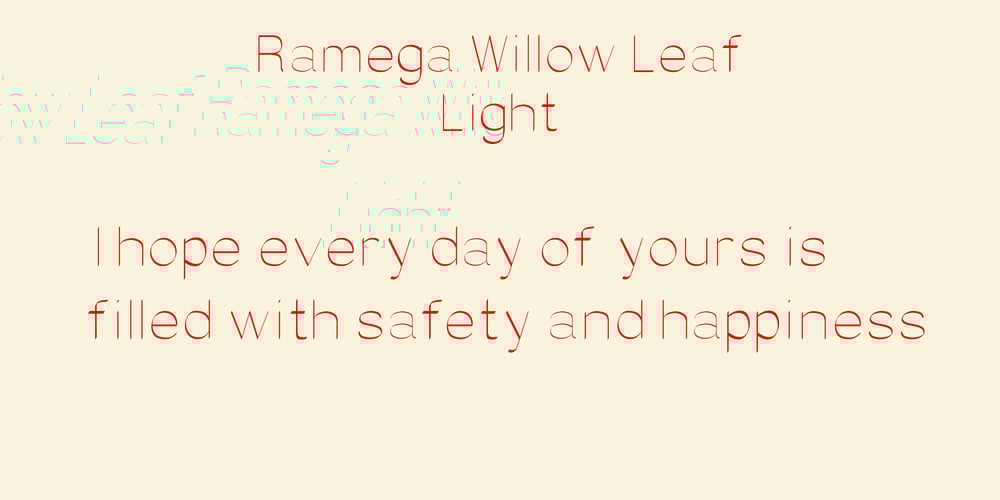
Ramega Willow Leaf
Ramega Willow Leaf font
Ramega Willow Leaf Font Family was designed by Apollo Zhang and published by Ramega. Ramega Willow Leaf contains 1 styles and family package options. Welcome to the world of “Willow Leaf” – an exquisite collection of English fonts now extended to include 6763 Simplified Chinese characters, covering the entire range specified in China’s GB2312 standard. With its distinct design, “Willow Leaf” showcases a unique character style that seamlessly blends the elegance of its original English typeface with the rich expressiveness of Chinese characters. The terminals of each character, both English and Chinese, feature a graceful slanted cut, resulting in a smooth and rounded appearance. Furthermore, the strokes exhibit subtle variations in line curvature and width at the transition points, adding an elegant touch to this contemporary typeface. Exuding an air of refinement and modernity, “Willow Leaf” effortlessly captures the spirit of our time in both the Western and Eastern script. Its sophisticated and fashionable aesthetic makes it an excellent choice for a wide range of applications. Whether used in editorial layouts, brand identities, or digital platforms, this typeface strikes a perfect balance between timeless elegance and contemporary allure. The meticulous craftsmanship of “Willow Leaf” ensures exceptional legibility and readability, even at smaller sizes, across both scripts. The harmonious proportions and intricate details make it a versatile choice for both headlines and body text. With an extensive selection of weights and styles, designers and typographers have endless creative possibilities at their fingertips. We are thrilled to announce that “Willow Leaf,” now supporting both Simplified Chinese and English alphabets, will soon be available for purchase on leading font platforms. Stay tuned for its official release, and get ready to elevate your designs with this exceptional typeface. Experience the seamless fusion of tradition and innovation, sophistication and contemporary flair across diverse languages. With “Willow Leaf,” your projects will radiate a timeless elegance that resonates with the spirit of our era, embodying the best of both Western and Eastern typographic arts. Embrace the captivating power of refined typography and let “Willow Leaf” elevate your designs to new heights. Discover “Willow Leaf” – where classic charm meets modern sophistication, and elegance takes on a whole new dimension, now spanning across two of the world’s most prevalent writing systems.